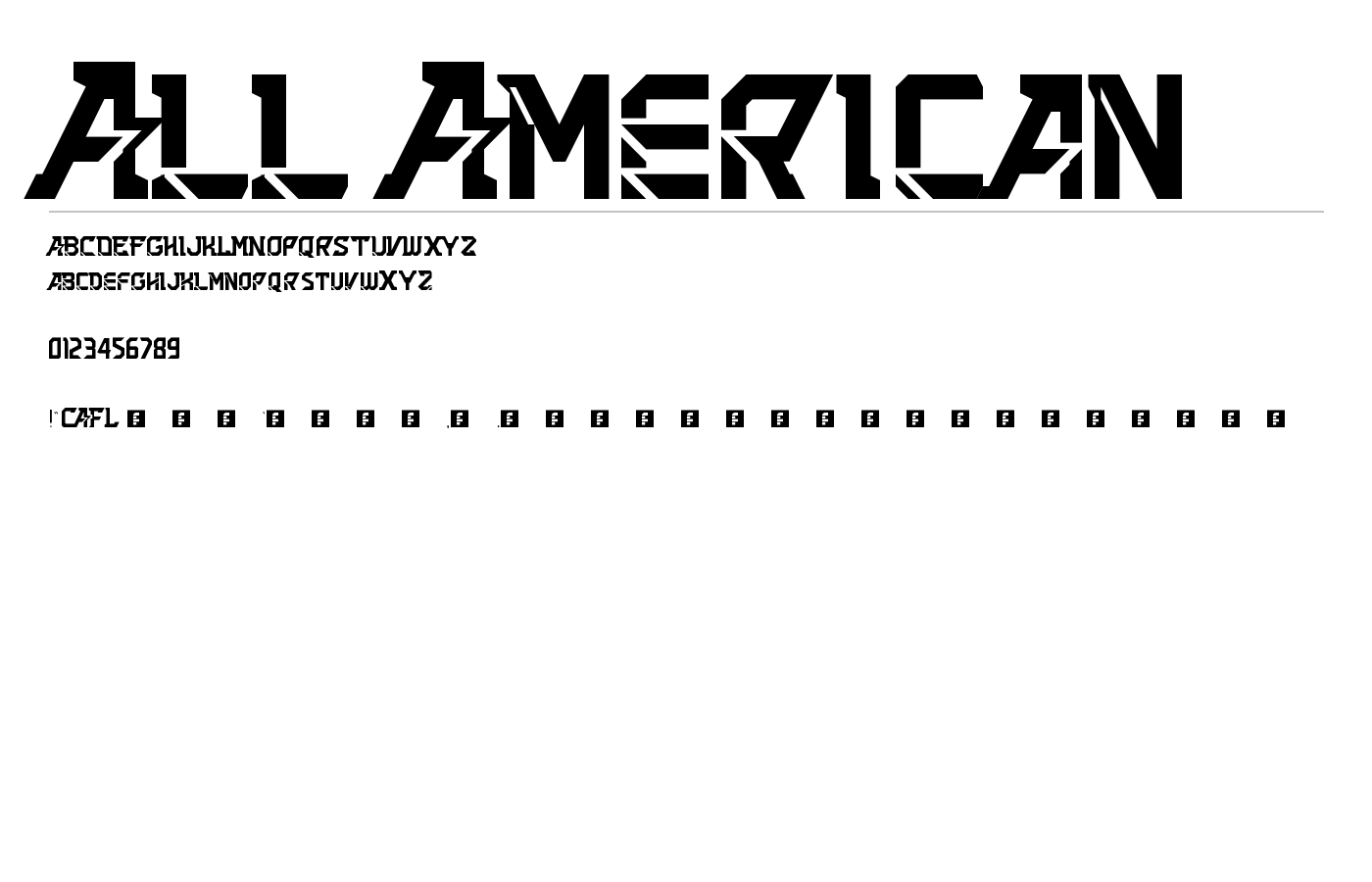
All American Font is a bold, geometric sans serif with a strong, angular look that gives it a distinctly modern and industrial feel. Its sharp edges and unique cut-out details create a sense of dynamic energy, making it ideal for headline use, branding, and designs that aim to convey strength and innovation. This font works great for sports, technology, and urban-themed projects where a powerful and edgy statement is needed.
All American Font
About All American Font
| Font family | All American Font |
| Designer | Bill Walker |